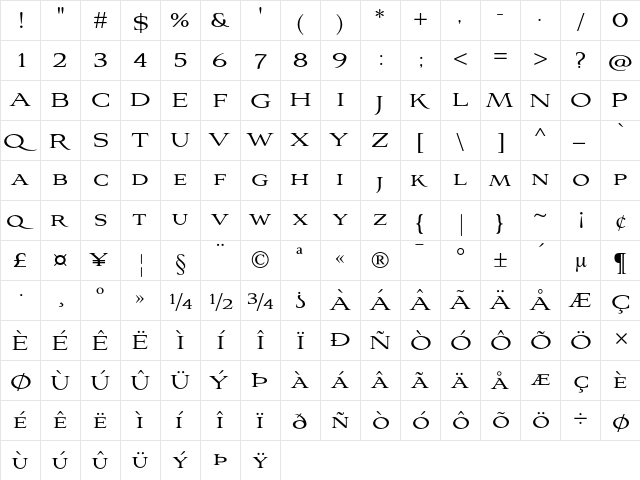
Aviano Regular
| Foundry | Jeremy Dooley |
Design Context for Aviano Typeface
Aviano takes a measured approach to typography — its balanced proportions and neutral character make it a reliable workhorse for both digital and print work.
Pro Tip: Pair Aviano with a font of contrasting weight or personality to build a more expressive typographic hierarchy.